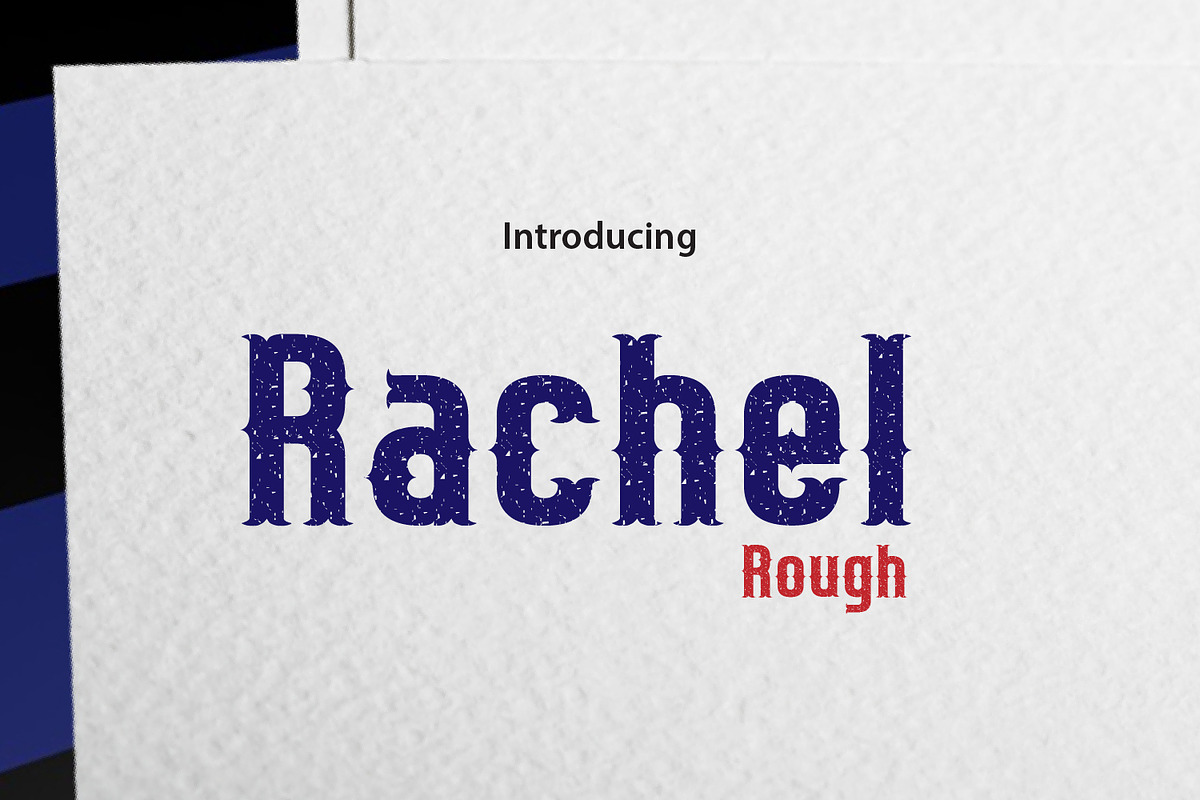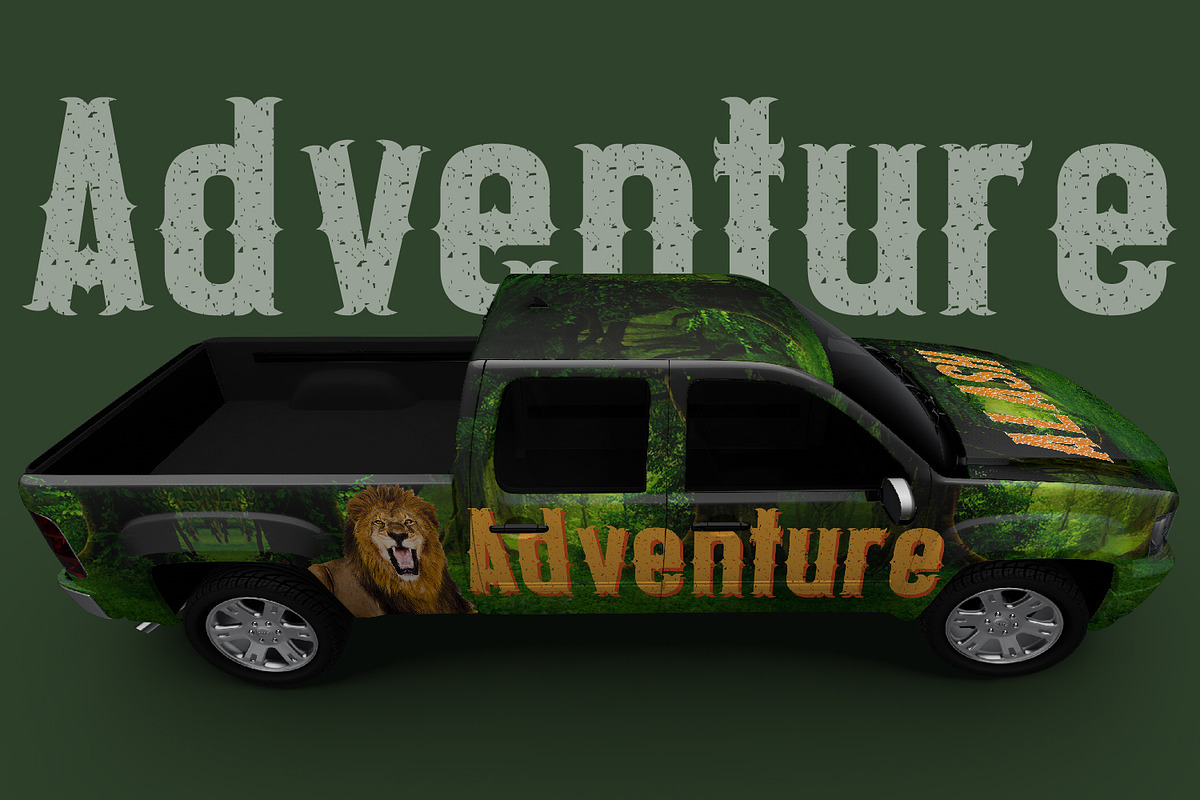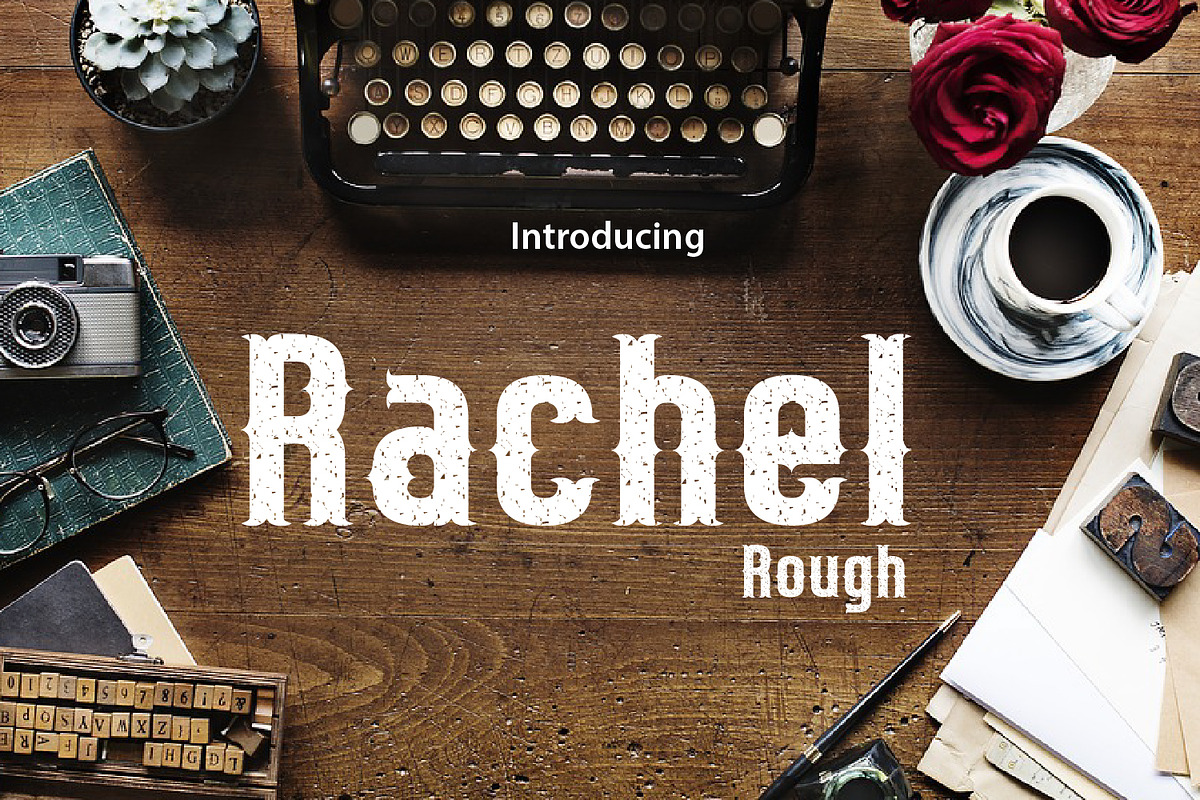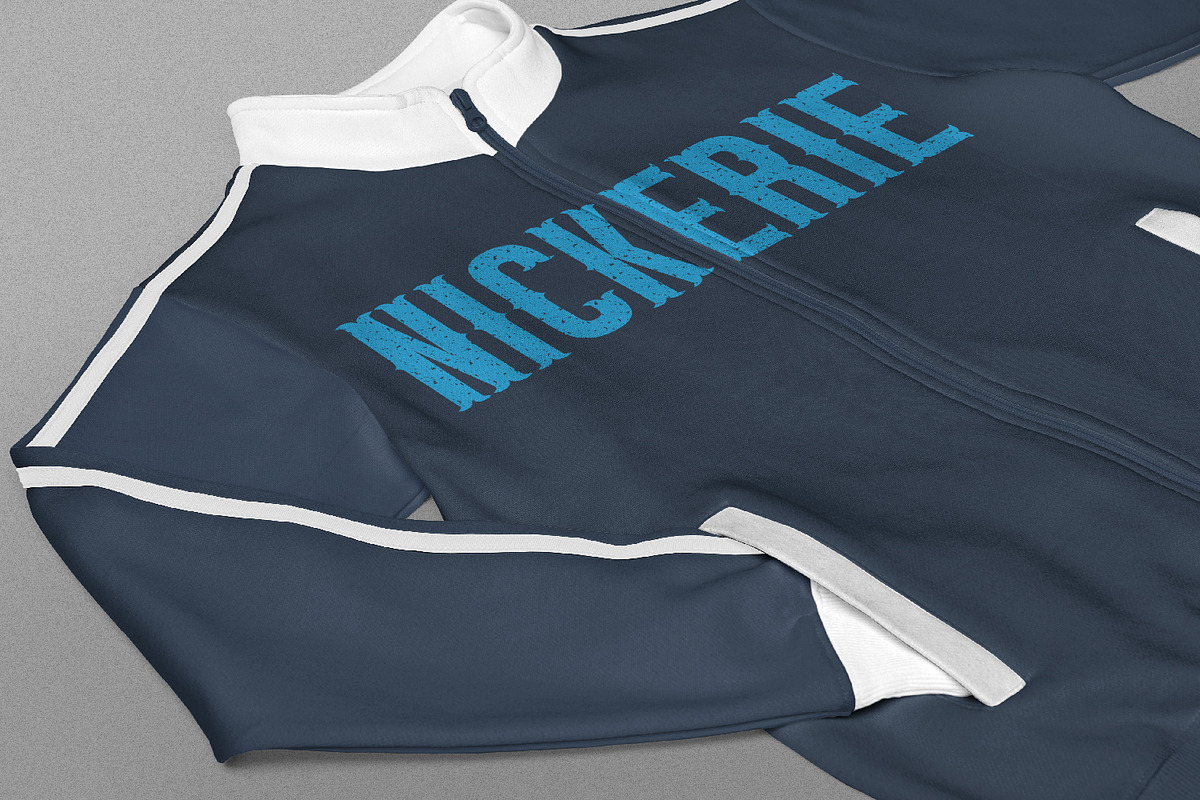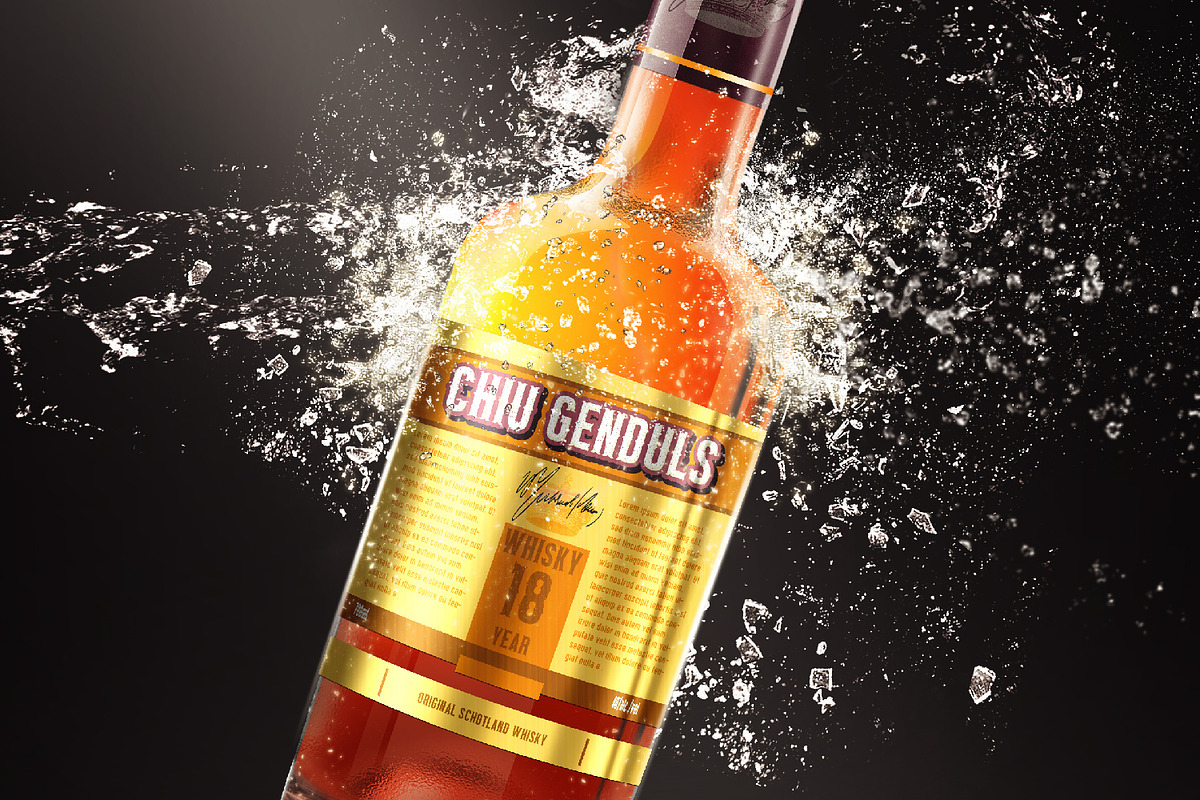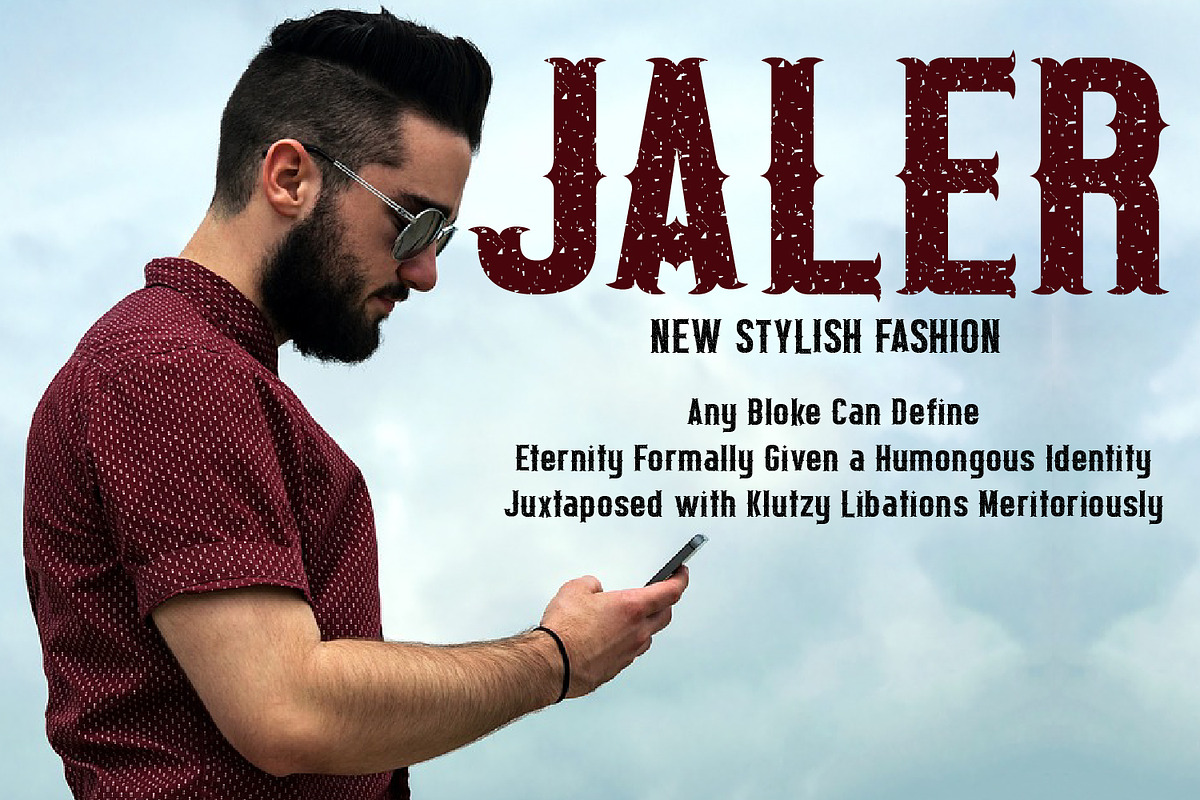
Rachel Rough
Rachel Rough is typeface with simple, minimalistic, retro and vintage feel character set. To create the beautiful rough to create an option for the designs.